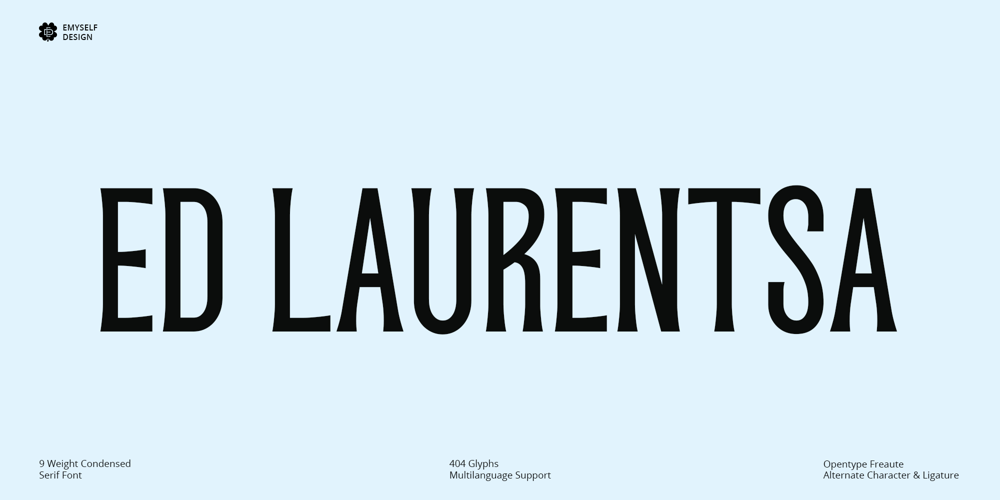
ED Laurentsa Font Family was designed by Eko Setiawan and published by Emyself Design. ED Laurentsa contains 9 styles and family package options. Introducing – ED Laurentsa is a classic serif font family consisting of 9 Weights (Thin, ExtraLight, Light, Regular, Medium, Semibold, Bold, ExtraBold, and Black).Try DEMO Version : https://emyselfdesign.gumroad.com/l/pgtitED Laurentsa has a classic minimalist look with a condensed style and has a wide variety from thin to black to suit your needs. This font is perfect for your design needs, such as logo design, branding, apparel, headings, web, etc.This font can also be easily combined with other fonts to create the perfect typography. Bold fonts are perfect for displays such as logos, or in-text headings. while the font with a thin style is suitable for covers, posters, or social media posts.